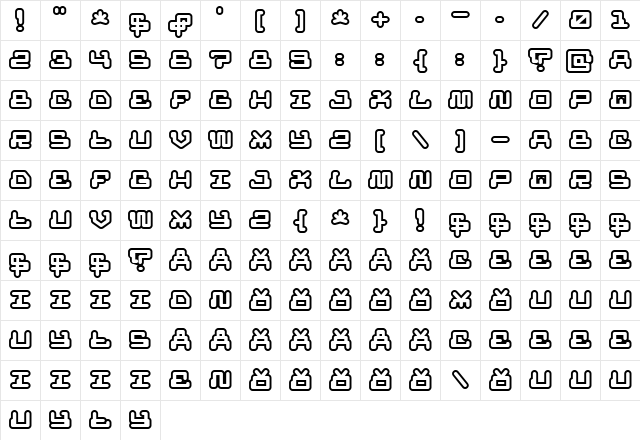
Complete MR FUGLESANG OUTLINE Regular glyph index. Displaying only characters natively supported by MR FUGLESANG OUTLINE Regular font.
MR FUGLESANG OUTLINE is built around its visual character rather than neutral utility - its distinctive forms are designed to make an impression at display sizes.
Font Pairing: Pair with a clean neutral sans-serif for body copy to let MR FUGLESANG OUTLINE's character lead without overwhelming the composition.
Pro Tip: Use MR FUGLESANG OUTLINE exclusively at display sizes - it was designed to be seen, not read at length. Let a neutral companion handle body copy.